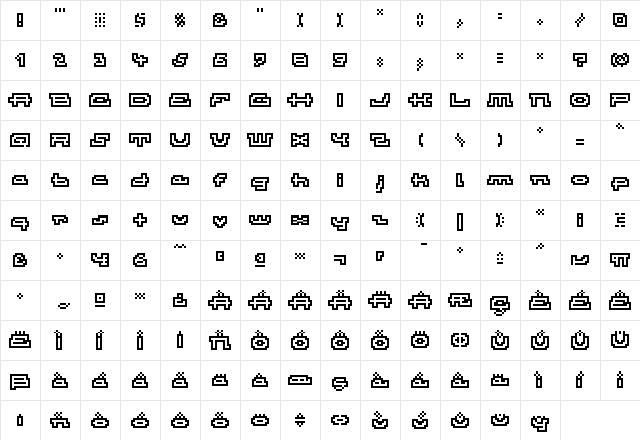
Atomic Outline
| Style | Outline |
Design Context for Atomic Typeface
Atomic brings ornamental detail and strong personality to headlines and identities, where visual impact matters more than quiet functionality.
Font Pairing: Pair with a clean neutral sans-serif for body copy to let Atomic's character lead without overwhelming the composition.
Pro Tip: Treat Atomic as the centrepiece of your typographic hierarchy. One strong heading set in a decorative face can carry an entire layout.